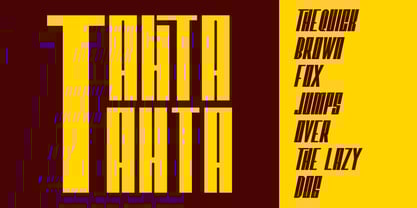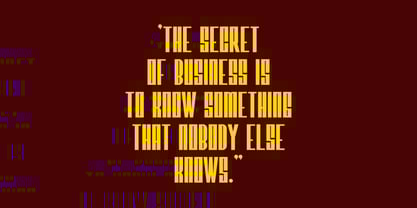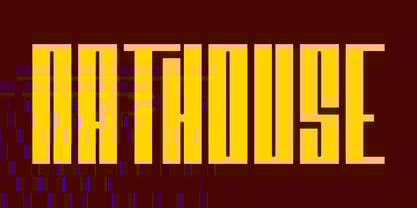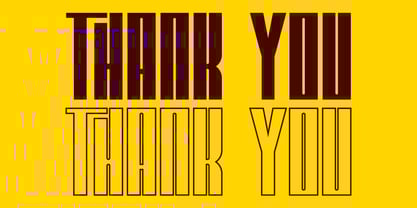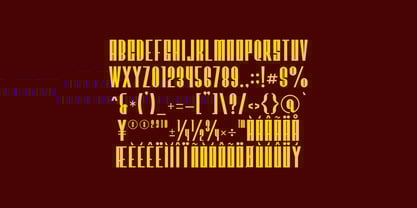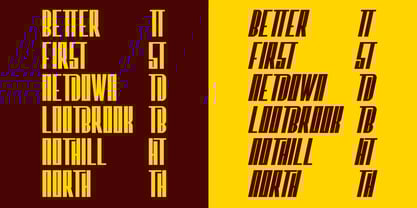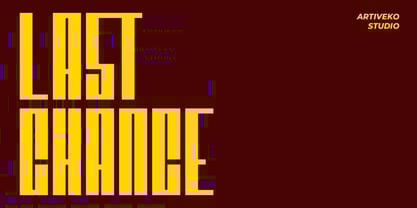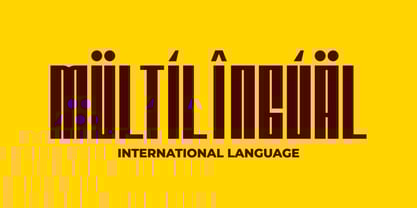
Nathouse
by Artiveko
The Nathouse Font Family was designed by Iwan Alwan and published by Artiveko. Nathouse contains 2 styles and family package options. More about this family
Nathouse is a condensed display font designed to make a bold and modern statement. Its tall, narrow letterforms and sharp edges create a strong visual impact, perfect for headlines, posters, branding, and editorial layouts. With multilingual support, ligatures, and alternates, Nathouse delivers both power and style, making it a great choice for designs that demand attention and clarity.
Designers: Iwan Alwan
Foundry: Artiveko